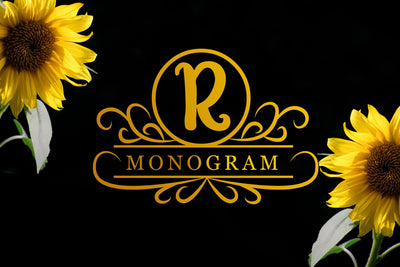
Awesome Monogram
Awesome Monogram is a fun and romantic decorative font, add this beautiful font to your creative project ideas into real works of art. This font is perfect for wedding invitations, beautiful stationary art, eye-catching social media posts, and cute greeting cards.